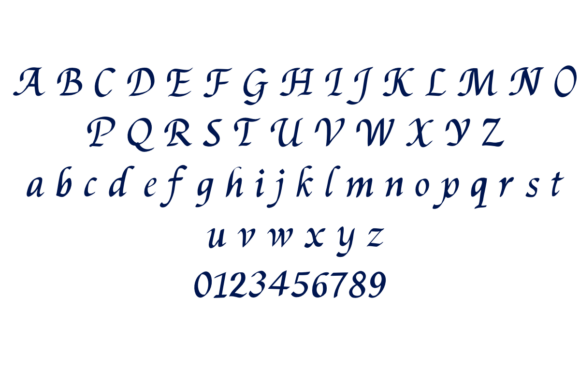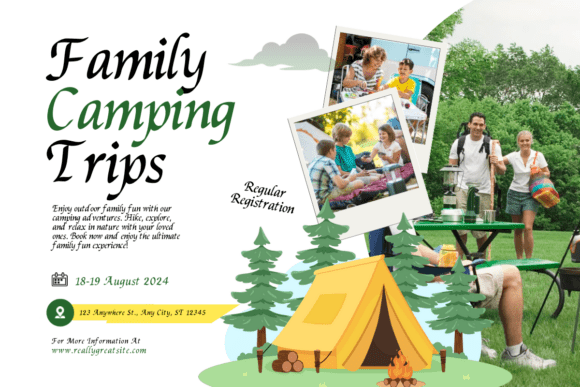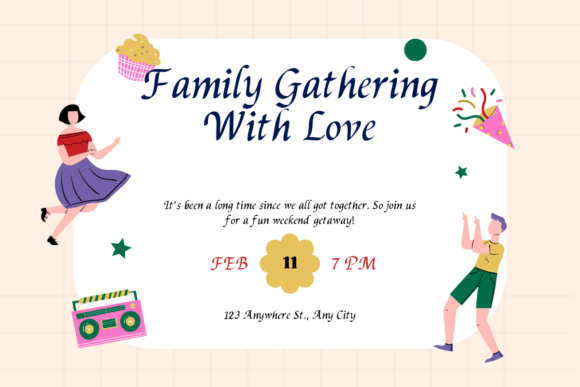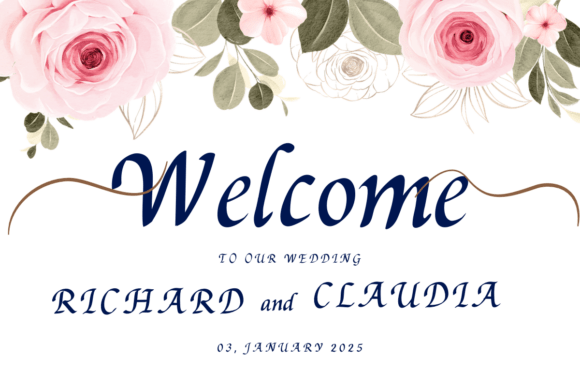
Family Day Font: Celebrating Togetherness with Elegance and Warmth
Are you looking for a font that embodies the spirit of family and togetherness? Look no further than the Family Day Font, a charming handwriting font that exudes warmth, elegance, and a sense of closeness. This beautiful font is perfect for designers and crafters who want to create heartfelt designs that celebrate the love and connection of family.
The Perfect Font for Heartfelt Designs
Family Day Font is a versatile and charming font that is ideal for a wide range of design projects, including invitations, greeting cards, family event posters, and more. Its soft curves and classic touch make it perfect for creating designs that are both elegant and warm. Whether you’re designing a birthday invitation, a wedding announcement, or a family reunion poster, Family Day Font is the perfect choice.
What Makes Family Day Font Special?
So, what makes Family Day Font so special? Here are just a few features that set it apart:
- Warm and Elegant: Family Day Font has a warm and elegant feel that’s perfect for creating designs that are both sophisticated and heartfelt.
- Soft Curves: The font features soft curves and rounded edges that give it a friendly and approachable feel.
- Classic Touch: Despite its modern look, Family Day Font has a classic touch that makes it perfect for traditional designs.
- Versatile: This font is versatile and can be used for a wide range of design projects, from invitations and greeting cards to posters and more.
How to Use Family Day Font
Using Family Day Font is easy! Here are a few tips to get you started:
- Pair it with Other Fonts: Family Day Font pairs well with other fonts, so feel free to experiment with different combinations to find the perfect look for your design.
- Use it for Headlines and Body Text: This font is perfect for both headlines and body text, making it a great choice for designs that need a clear and easy-to-read font.
- Add Decorations: Consider adding decorations, such as flowers or other graphics, to give your design a more personal touch.
Design Ideas with Family Day Font
- Family Event Posters: Create a poster for a family event, such as a reunion or a birthday party, using Family Day Font.
- Wedding Invitations: Use Family Day Font to create beautiful and elegant wedding invitations that set the tone for the big day.
- Greeting Cards: Create heartfelt greeting cards for special occasions, such as Mother’s Day or Father’s Day, using Family Day Font.
- Family Recipe Book: Create a family recipe book filled with your favorite recipes and featuring Family Day Font.
Family Day Font is a charming handwriting font that is perfect for designers and crafters who want to create heartfelt designs that celebrate the love and connection of family. With its soft curves, classic touch, and versatile design, this font is ideal for a wide range of projects, from invitations and greeting cards to posters and more. So why wait? Download Family Day Font today and start creating beautiful designs that bring a sense of closeness to your typography!
Whether you’re a designer or a crafter, Family Day Font is a great addition to your font collection. Its warm and elegant feel makes it perfect for creating designs that are both sophisticated and heartfelt. So go ahead, celebrate togetherness with Family Day Font, and bring a sense of closeness to your typography!